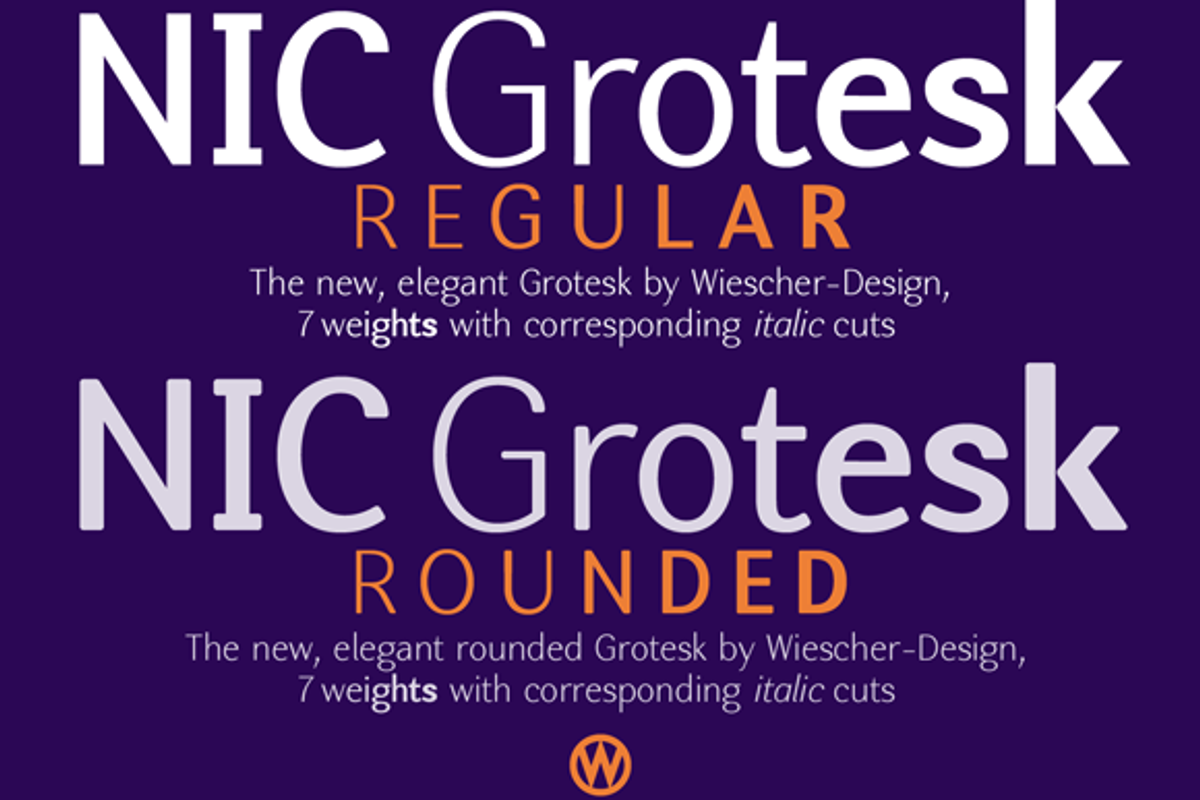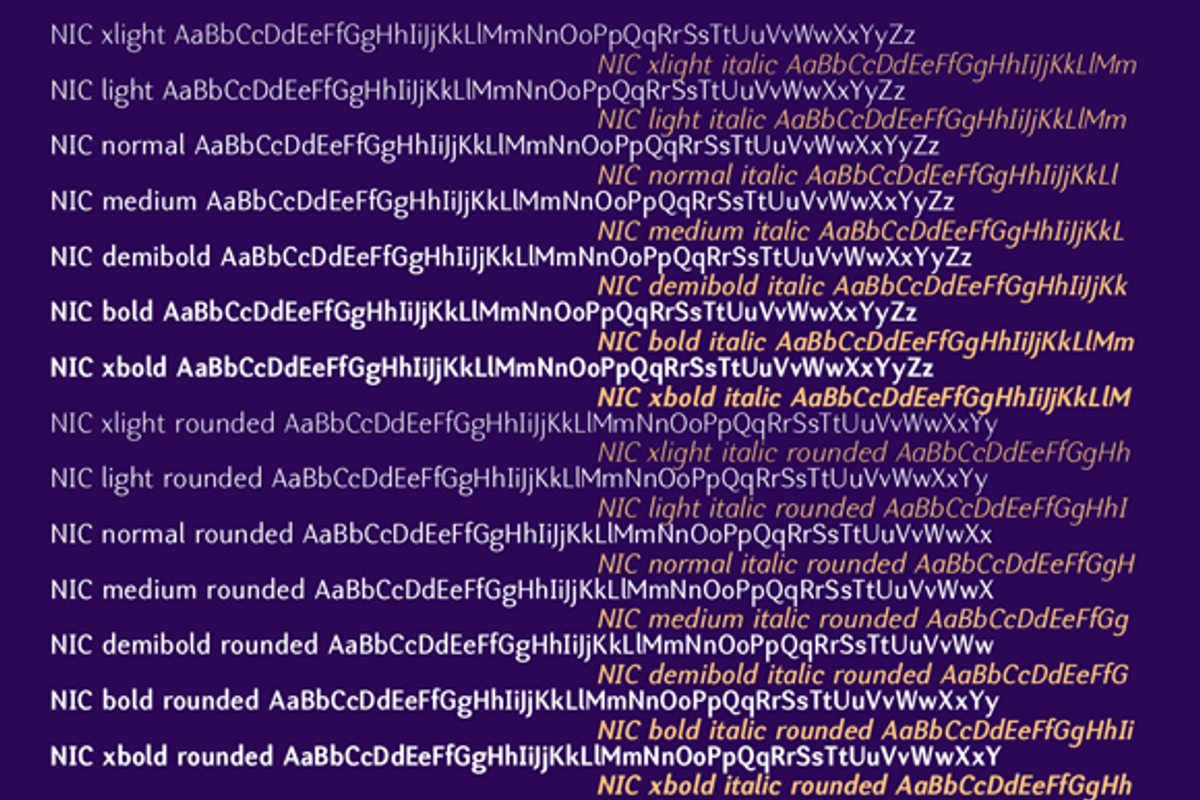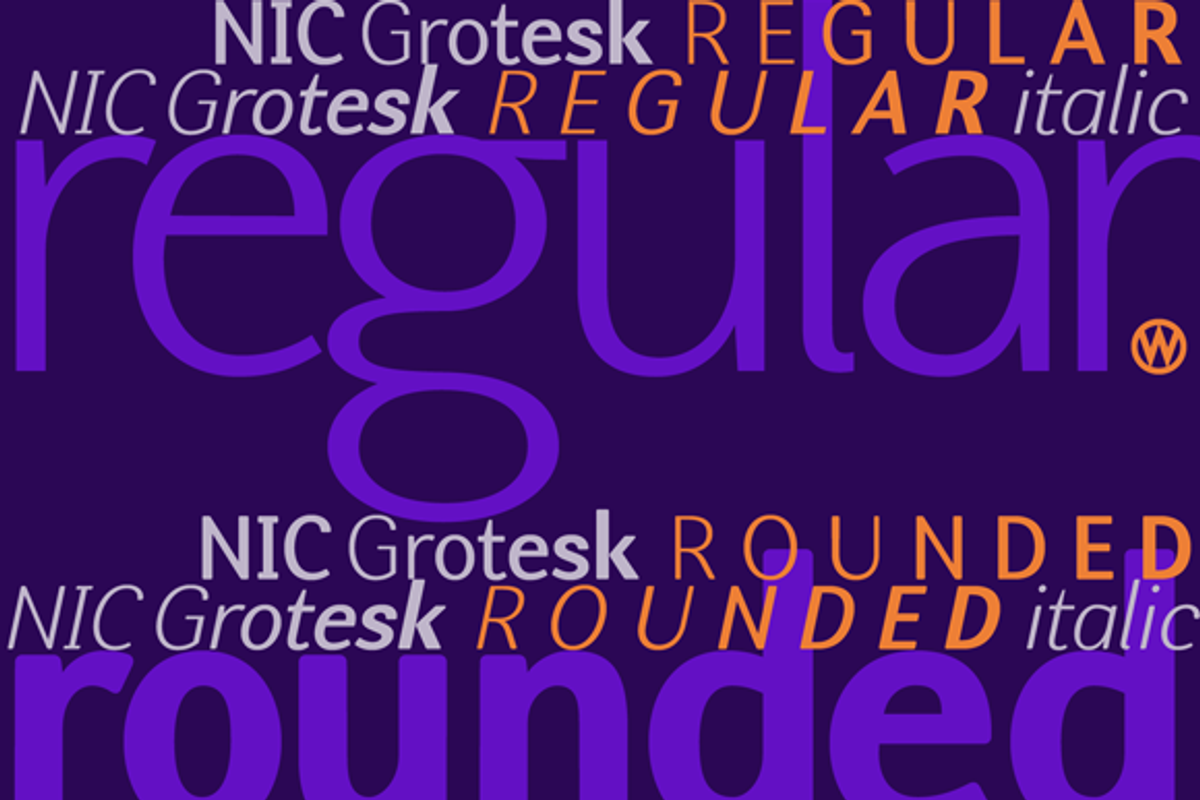
NIC fonts
»NIC« like in scenic is a completely new very elegant grotesk font family that has nice contrast in the up and downstrokes. I am not such a big fan of monoline fonts, most of them tend to look like Futura and you hardly can better Futura. »NIC« is more in the tradition of Franklin Gothic, one of my all time favourite fonts, but »NIC« has its own character. The font looks like it has been around forever but it has new forms and new proportions that make it very, very readable. »NIC« has a character set of 558 glyphs with the most important ligatures, four different sets of numerals, normal and medieval numbers aligned for tables as well as two sets of fitted numbers, superior-inferior-denominator snd nominators, the font family comes in 7 weights with corresponding italic cuts with a normal and a rounded version each, all together 28 fonts. You get files for OpenType, and webfonts EOT and WOFF. More is in the works. Enjoy! This special introductory offer is good for a short time only.